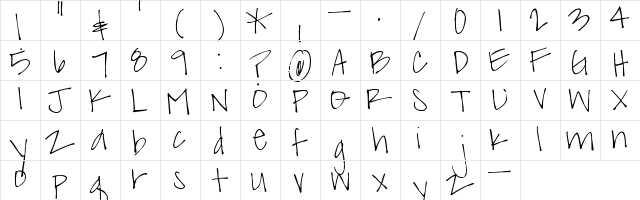
Pea sdflenner Regular
Design Context for Pea sdflenner Typeface
Pea sdflenner is a composed and adaptable typeface that performs quietly and consistently across a wide range of design contexts.